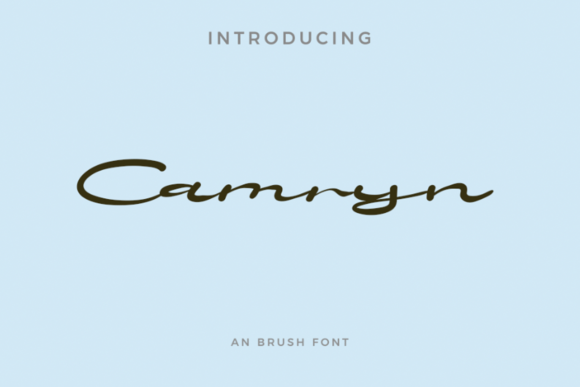
The Elusive Font: A Designer’s Quest for the Perfect Script
I still remember the countless hours I spent searching for the perfect font for a client’s wedding invitation project. The design brief called for something elegant, yet playful; sophisticated, yet approachable. I scoured the internet, tried out dozens of fonts, but nothing seemed quite right. That was until I stumbled upon Camryn – a singularly captivating script font that stole my heart. In this article, I’ll share my journey with Camryn, its unique features, and how you can make the most of this beautiful typeface in your artistic projects.
Getting to Know Camryn
Camryn is a meticulously crafted script font that exudes elegance and personality. Its endearingly handwritten design makes it perfect for adding a touch of warmth and authenticity to your work. Every curve and line in Camryn translates into a piece of art, making it a standout in the world of typography.
An Honest Review of Camryn
• ✨ Elegantly lovely script design that’s perfect for creative projects
• ✅ Meticulously crafted with a careful hand lettering touch
• 💫 Adds a delightful personality to your artistic projects
• 📝 Supports OpenType features, glyphs, and stylistic alternates
• 🤔 May require some kerning adjustments for optimal results
• ⚠️ Not suitable for very small font sizes due to intricate design
The Story Behind Camryn
Camryn was designed with the intention of creating a unique, handcrafted script font that would add a touch of warmth and authenticity to creative projects. The designer aimed to create a font that would be both elegant and playful, making it perfect for a wide range of applications.
Q: What makes Camryn unique?
A: Camryn’s unique blend of elegance and playfulness, combined with its meticulously crafted hand lettering touch, sets it apart from other script fonts.
Q: Is Camryn suitable for body text?
A: While Camryn is beautiful, it’s best suited for headlines, titles, or short paragraphs due to its intricate design.